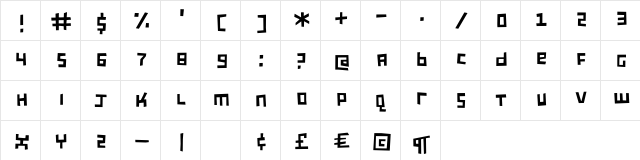
GirlScoutBitch Sarcastic
Design Context for GirlScoutBitch Typeface
GirlScoutBitch is a composed and adaptable typeface that performs quietly and consistently across a wide range of design contexts.
Pro Tip: Use GirlScoutBitch in both headline and body roles to test its range before committing to a single application.